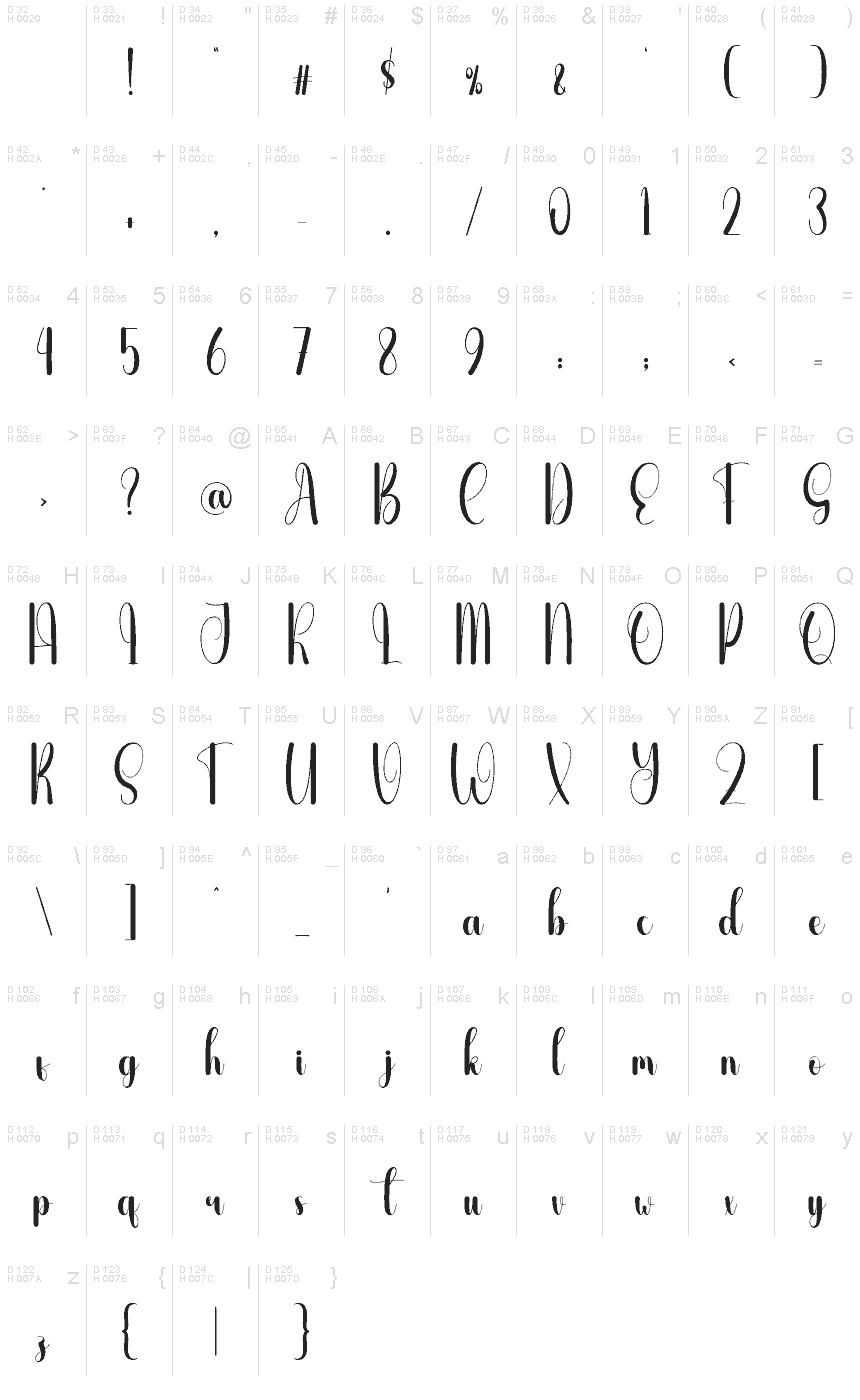
Almonds
Almonds font, designed by Andi Moz, is a free calligraphy font that exhibits an expressive and elegant style. Its sophisticated appearance is highlighted by a modern calligraphic flair with smooth sweeping lines. The condensed width adds an extra level of beauty to the overall design, making it stand out in subtle yet impactful ways.
Use Almonds fonts on wedding invitations, greeting cards, signage designs, book titles and covers, wall poster art designs, typography quotes and t-shirt print quotes. Other possible creative projects include logotype designing for branding purposes or packaging/labeling product packaging purposes just to name some applications where this versatile typeface shines!